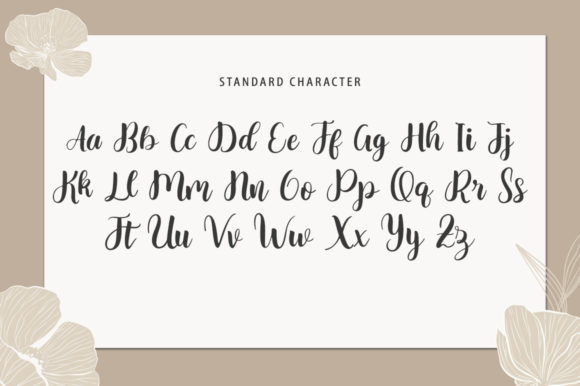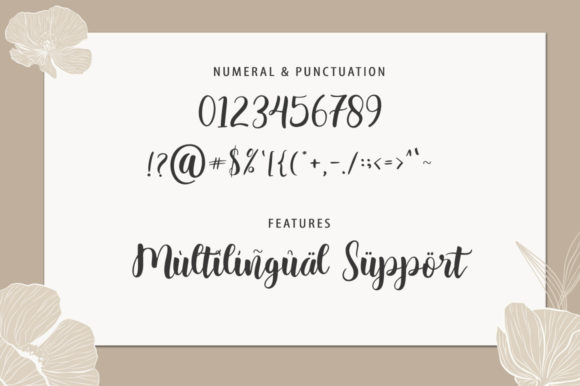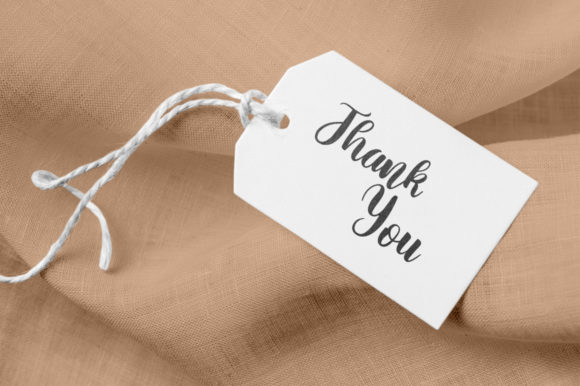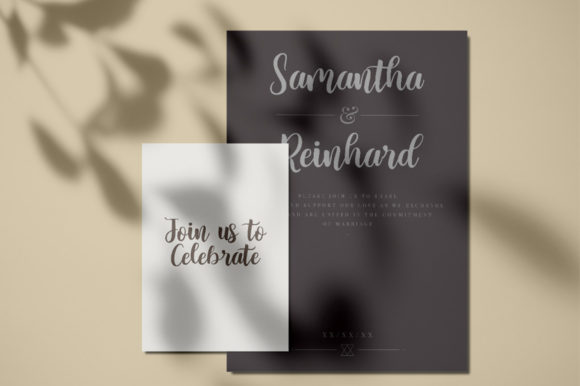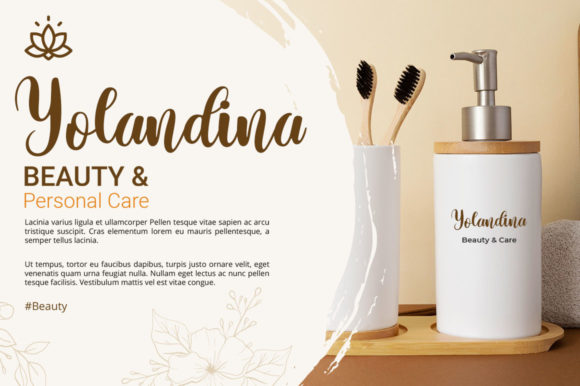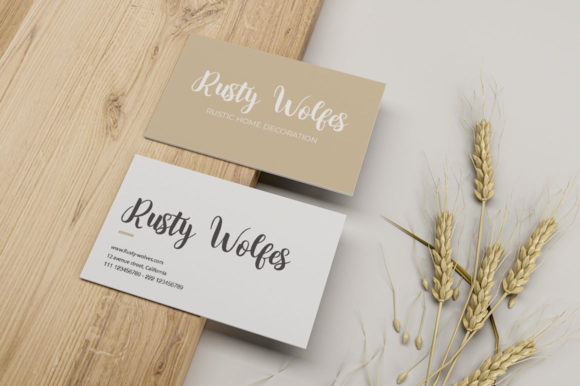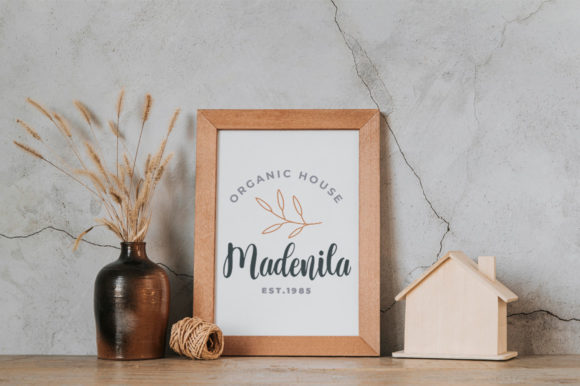
Calamity Font
About Calamity Font
Calamity is a chic, refined script font that emanates sophistication and elegance. Its stylish alternates and ligatures make this font the perfect match for any project.